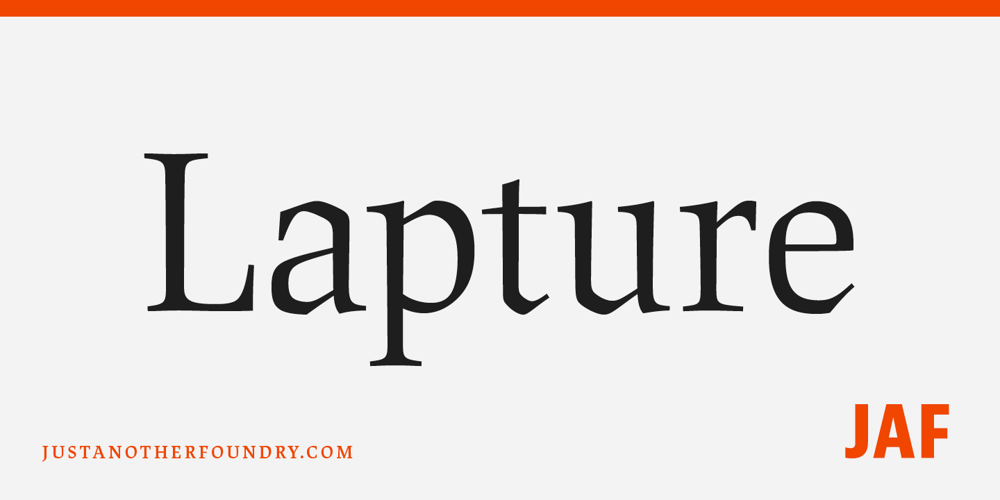
JAF Lapture Font Family was designed by Albert Kapr, Tim Ahrens and published by Just Another Foundry. JAF Lapture contains 24 styles and family package options. Lapture is based on the Leipziger Antiqua by Albert Kapr, released in 1971 by the East German foundry Typoart. It has been extended and carefully redesigned by Tim Ahrens in 2002-05. The strong calligraphic characteristics are a result of the design process: “The size of the counters and the width of individual characters at small optical sizes were analysed with a steel pen while the letter shapes were designed in larger size with a specially trimmed reed pen. Sometimes the hand is more innovative than the head alone,” says Kapr. A unique feature of this font is the introduction of gothic shapes into a latin typeface. “The basic concept is to string together narrow white hexagons as counters and inter-letter spaces, defined by vertical stems and triangular serifs. The interior spaces are at least as important as the strokes that make up the characters.” Lapture is an ideal choice if a reference to gothic style is desired, as true black letter types are often too eye-catching and not as legible as latin fonts for unfamiliar readers. “The last few years have seen a number of very elegant typefaces based on the mellow and feminine renaissance model. However, sometimes we require a font that is strong and robust, harmonic yet rigid,” says designer Tim Ahrens. JAF Lapture is provided in OpenType format. Each font contains more than 600 glyphs, including true small caps, nine sorts of figures, contextual and stylistic alternates and accented characters. This means that you only need to purchase one font whereas in other families you would have to buy two or three fonts in order to get the same. Technically, they follow the Adobe Pro fonts and provide the same glyph set and OpenType functionality. JAF Lapture Basic is provided in OpenType format. Each font contains the standard sets of both MacOS and Windows. In contrast to JAF Lapture they do not provide any advanced OpenType features and no extended glyph set.